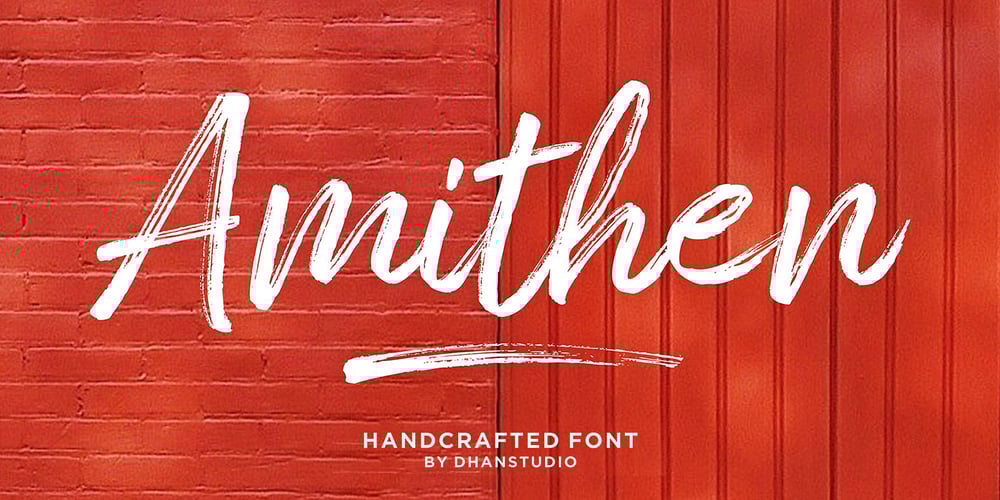
Amithen Font Family was designed by Mauli Zari and published by Dhan Studio. Amithen contains 2 styles and family package options. Amithen is textured brush font, a contemporary approach to design, with a handmade natural and irregular baseline. Suitable for use in title design. Such as apparel, invitations, book tittles, stationery design, quotes, branding, logos, greeting cards, t-shirts, packaging design, posters and more.